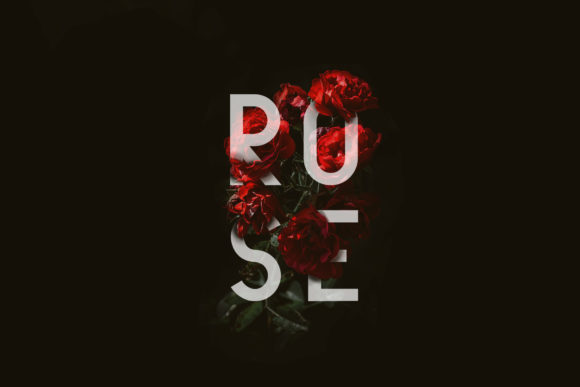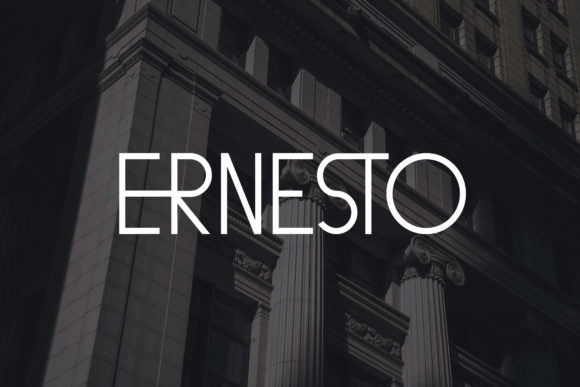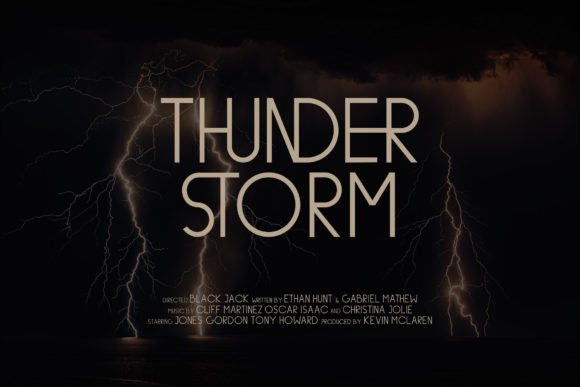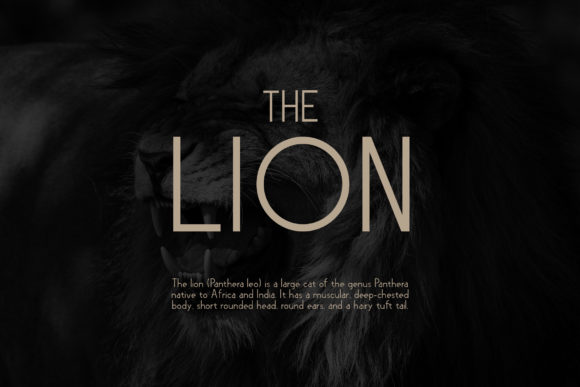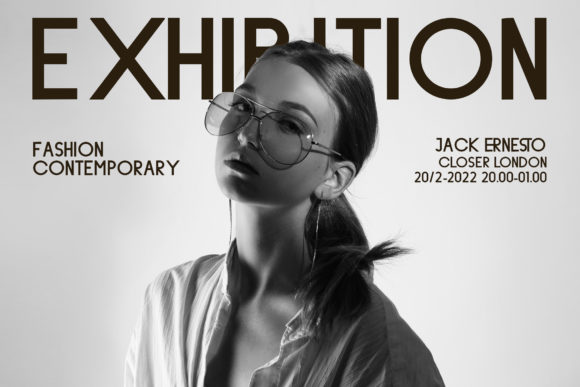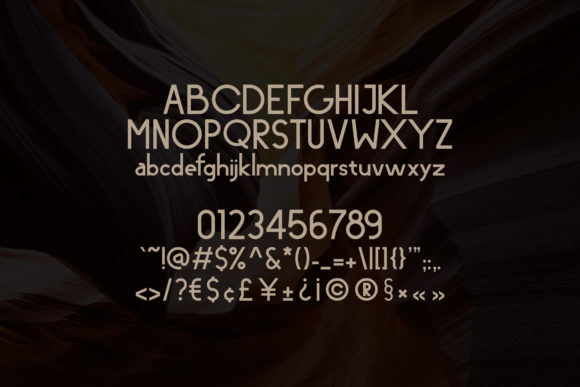
Introducing Charles Font: A Clean and Modern Sans Serif for Your Creative Projects
Are you a designer, crafter, or simply someone who appreciates the beauty of typography? Look no further than Charles Font, a stunning clean and modern sans serif font that is sure to elevate your creative projects to new heights. With its sleek lines, elegant curves, and versatile design, Charles Font is an excellent addition to any font library.
What Makes Charles Font So Special?
Charles Font is a masterpiece of modern typography, boasting a range of characteristics that make it an exceptional choice for a wide variety of applications. Here are just a few reasons why Charles Font stands out from the crowd:
- Clean and Modern Design: Charles Font features a clean and modern sans serif design that is both visually striking and highly legible. Its sleek lines and elegant curves make it perfect for use in a wide range of creative projects, from digital media to print materials.
- Versatility: Whether you’re designing a logo, creating a brochure, or crafting a social media post, Charles Font is the perfect choice. Its versatility ensures that it will work seamlessly in any context, from formal and professional to playful and creative.
- Highly Legible: Charles Font is designed to be highly legible, even at small sizes. This makes it an excellent choice for use in body text, captions, and other applications where readability is crucial.
- Unique Character: Despite its clean and modern design, Charles Font has a unique character that sets it apart from other sans serif fonts. Its subtle quirks and nuances add a touch of personality to any design, making it perfect for use in creative projects that require a bit of flair.
How Charles Font Can Enhance Your Creative Projects
Charles Font has the potential to enhance any creative project, regardless of the topic or theme. Here are just a few ways that Charles Font can elevate your designs:
- Branding and Logo Design: Charles Font is an excellent choice for use in branding and logo design. Its clean and modern design makes it perfect for creating professional and memorable logos that will help your brand stand out.
- Print Materials: Whether you’re designing a brochure, flyer, or business card, Charles Font is an excellent choice. Its high legibility and versatility ensure that it will work seamlessly in any print material.
- Digital Media: Charles Font is also perfect for use in digital media, including social media posts, website headers, and more. Its clean and modern design makes it highly adaptable to digital formats.
- Crafting and DIY Projects: If you’re a crafter or DIY enthusiast, Charles Font is a great choice for use in your projects. Its unique character and versatility make it perfect for use in a wide range of crafting and DIY applications, from scrapbooking to woodworking.
Why You Should Add Charles Font to Your Font Library
If you’re a designer, crafter, or simply someone who appreciates the beauty of typography, Charles Font is an excellent addition to your font library. Here are just a few reasons why:
- Universal Applicability: Charles Font is a versatile font that can be used in a wide range of creative projects, from branding and logo design to print materials and digital media.
- High Quality Design: Charles Font is a high-quality font that is designed to deliver exceptional results. Its clean and modern design ensures that it will work seamlessly in any context.
- Easy to Read and Use: Charles Font is highly legible and easy to read, even at small sizes. This makes it an excellent choice for use in body text, captions, and other applications where readability is crucial.
In conclusion, Charles Font is an exceptional clean and modern sans serif font that is sure to enhance any creative project. Its versatility, high legibility, and unique character make it an excellent addition to any font library. Whether you’re a designer, crafter, or simply someone who appreciates the beauty of typography, Charles Font is a must-have font that is sure to deliver exceptional results.